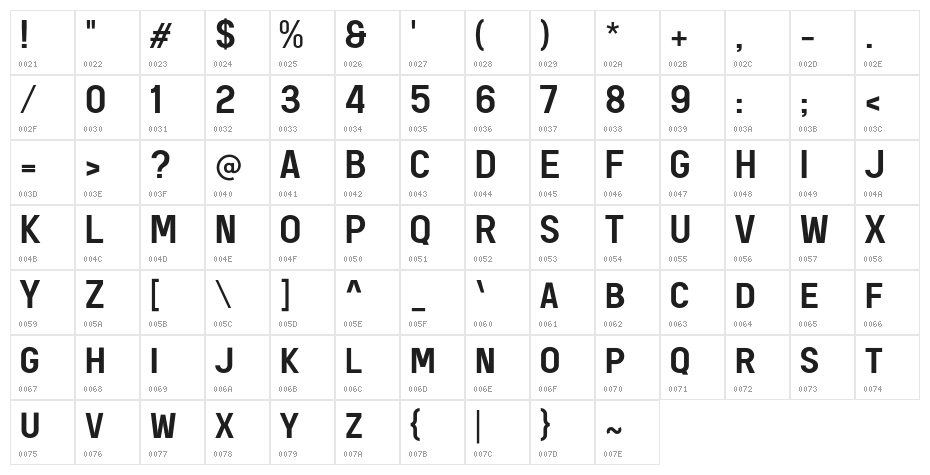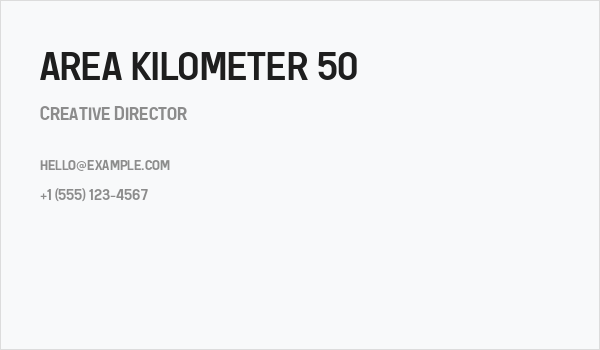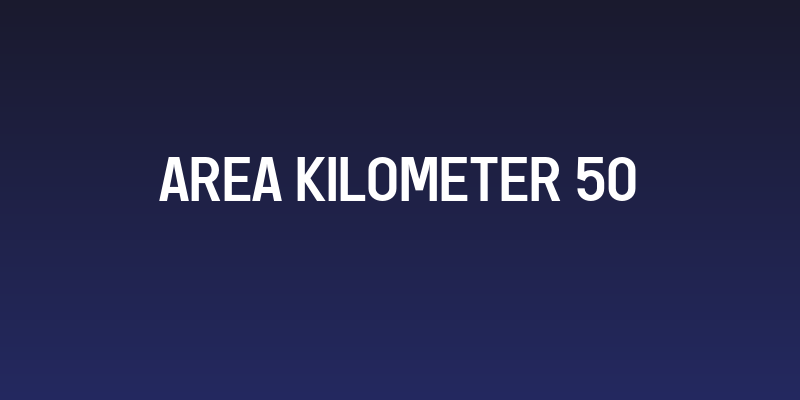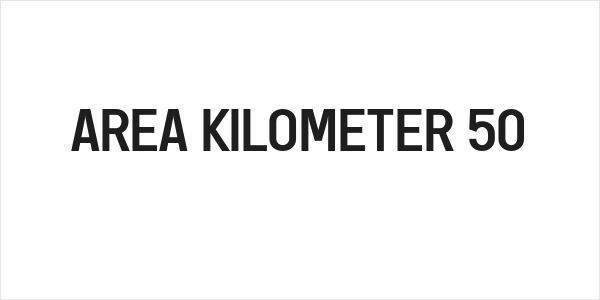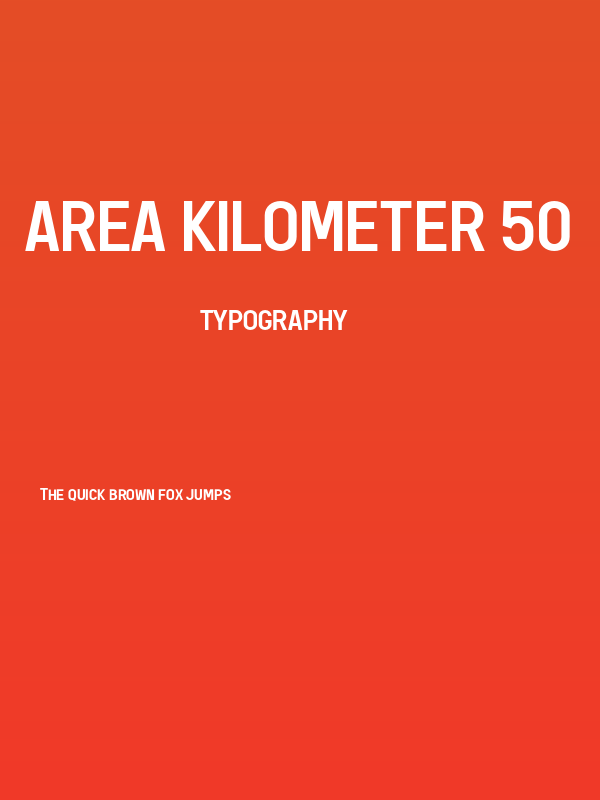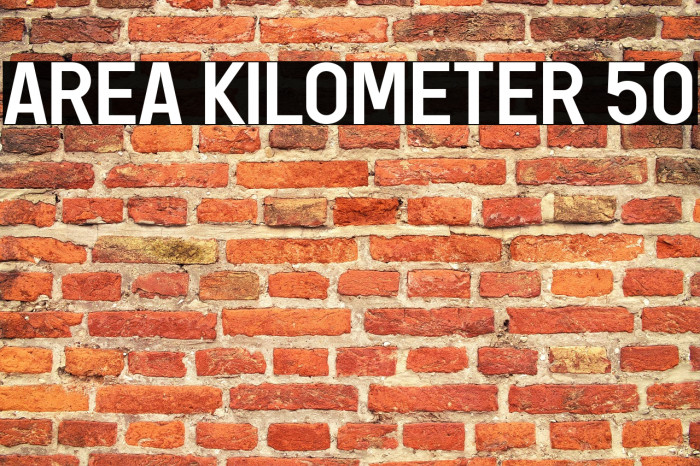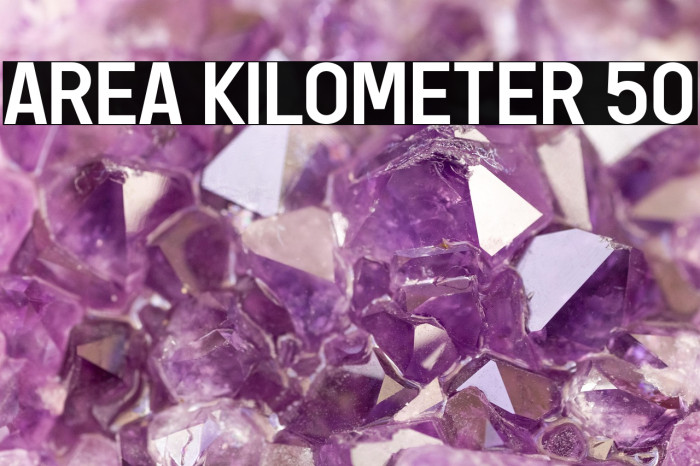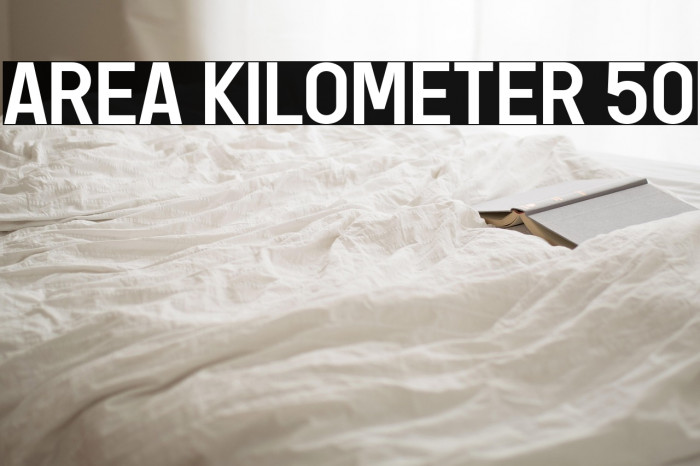
AREA KILOMETER 50 Font
AREA KILOMETER 50 Description
This font features a bold and modern sans-serif style with clean, straight lines and uniform stroke widths. The characters are well-defined with a strong presence, making them highly legible. The uppercase letters are slightly taller than the lowercase, maintaining a consistent width throughout. Numbers are clear and distinct, matching the overall boldness of the alphabet. Special characters are designed to complement the letters and numbers, ensuring a cohesive look across all elements.
| Use Case | Headlines, Logos, Signage |
| Proposed Projects | Ideal for headlines, signage, branding, and any project requiring a strong, modern typeface. |